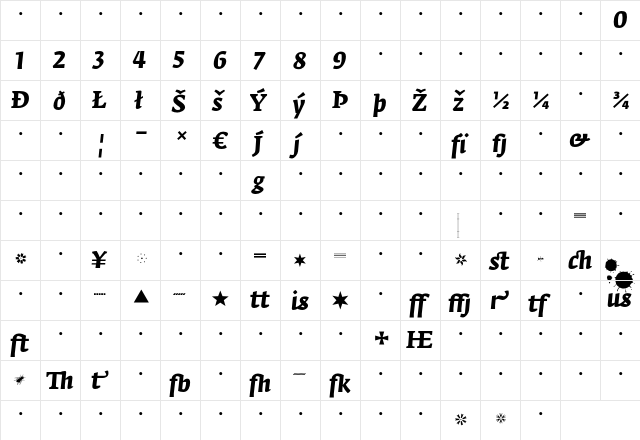
FedraSerifA BoldItalicExpert
Design Context for FedraSerifA Typeface
FedraSerifA brings classic typographic sensibility to the table — its serifs and measured letterforms reflect centuries of print heritage. The dynamic lean of this cut emphasises speed and emphasis in any layout. Its bold stroke weight gives it real presence on the page.
Pro Tip: Set FedraSerifA with slightly loose tracking in headlines to let each letterform's detail read clearly at display sizes.